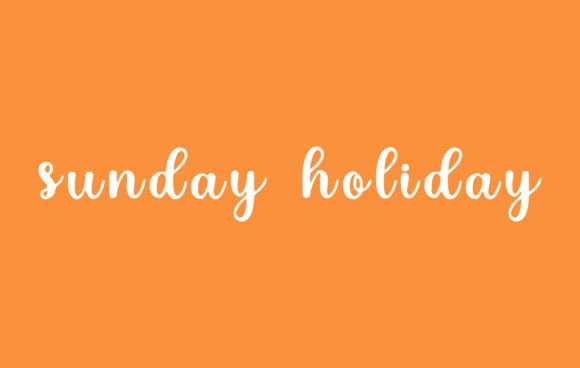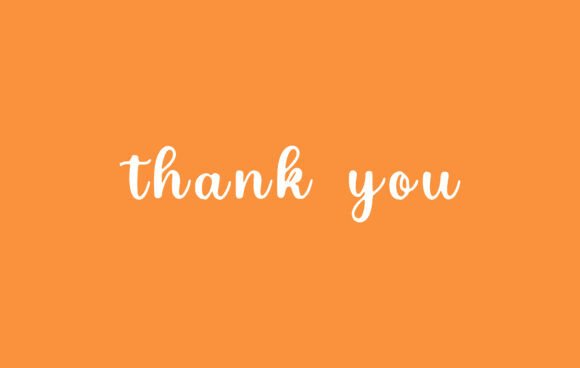
Introduction to Rayna Font
Rayna font is an authentic handwritten font with a romantic touch.
Key Features of Rayna Font
Why Choose Rayna Font?
Rayna Font offers exceptional quality and versatility, making it a valuable addition to your design toolkit. Whether you’re creating for personal projects or commercial use, Rayna Font delivers professional results.